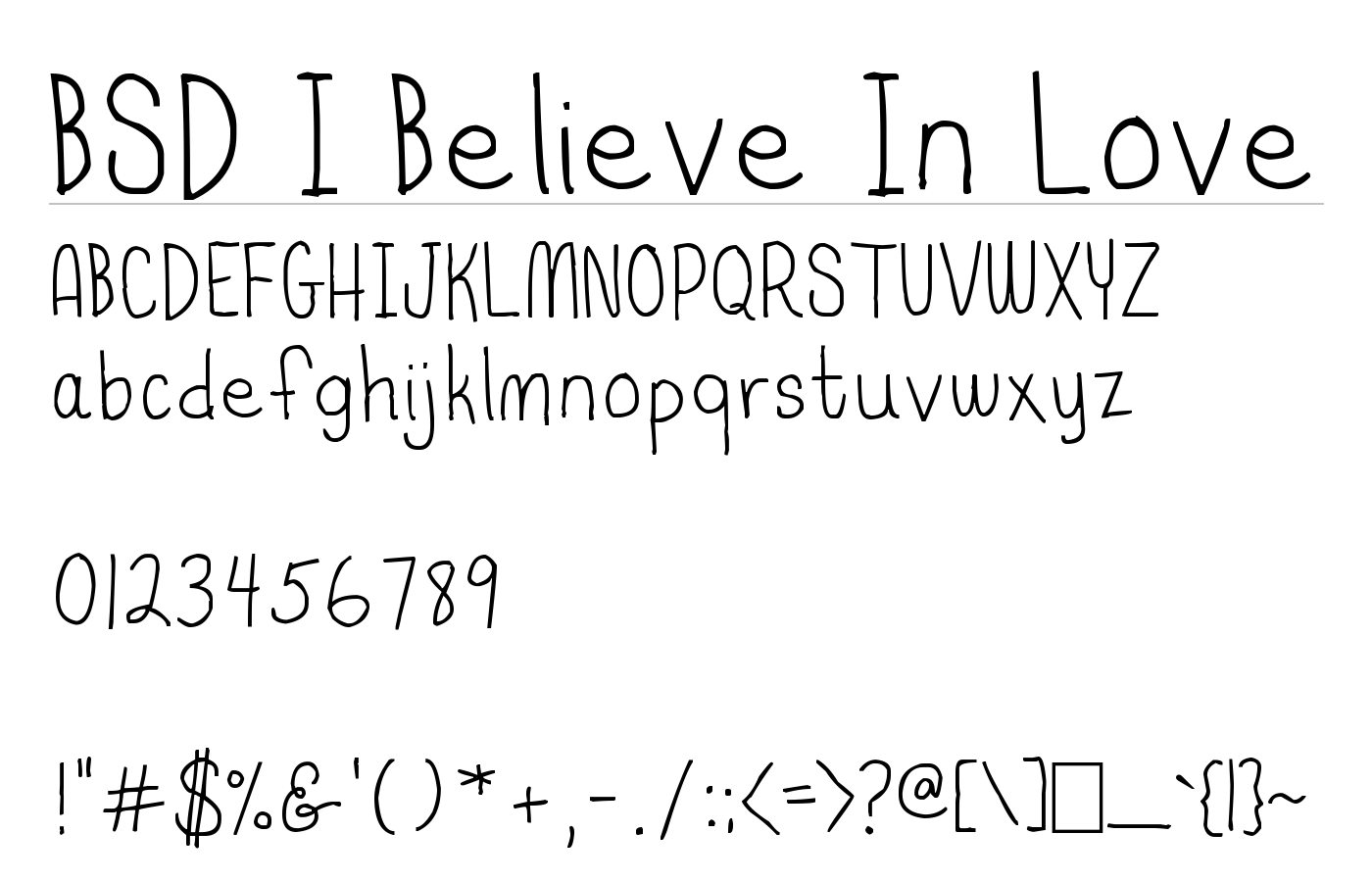
BSD I Believe In Love is a whimsical, hand-drawn sans serif font with a casual and playful feel, characterized by its tall, narrow letterforms and irregular, slightly quirky strokes. Its light weight and airy spacing give it a friendly, approachable personality, making it perfect for informal designs, children’s materials, or artistic projects seeking a personal, heartfelt touch. This font works well for headlines, logos, and creative branding where a warm, human vibe is desired.
BSD I Believe In Love Font
About BSD I Believe In Love Font